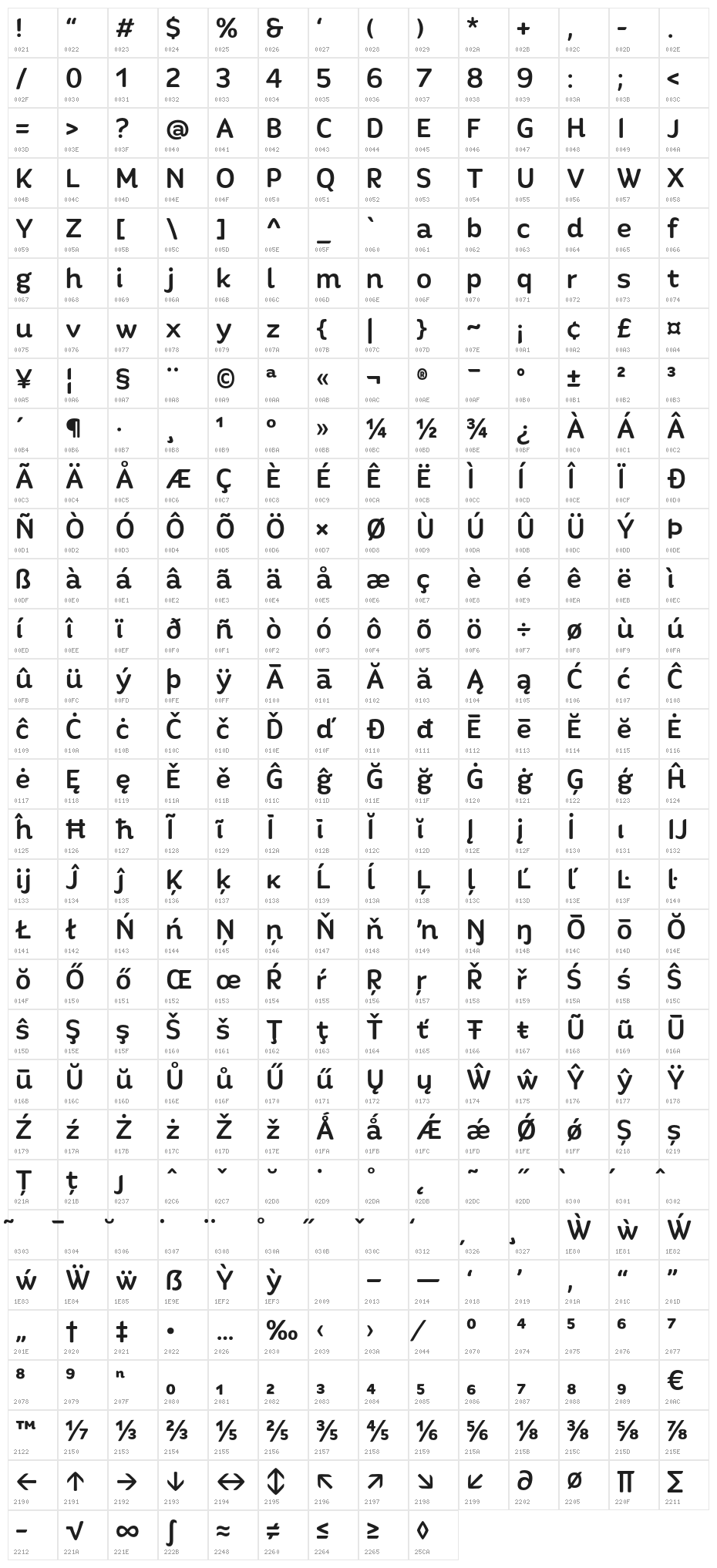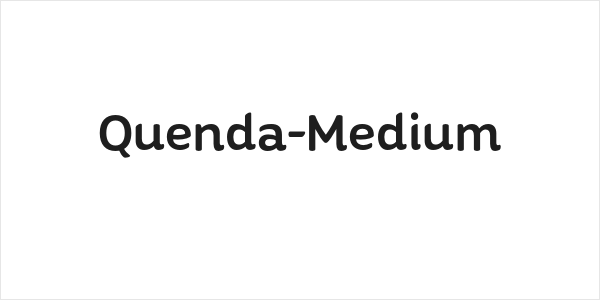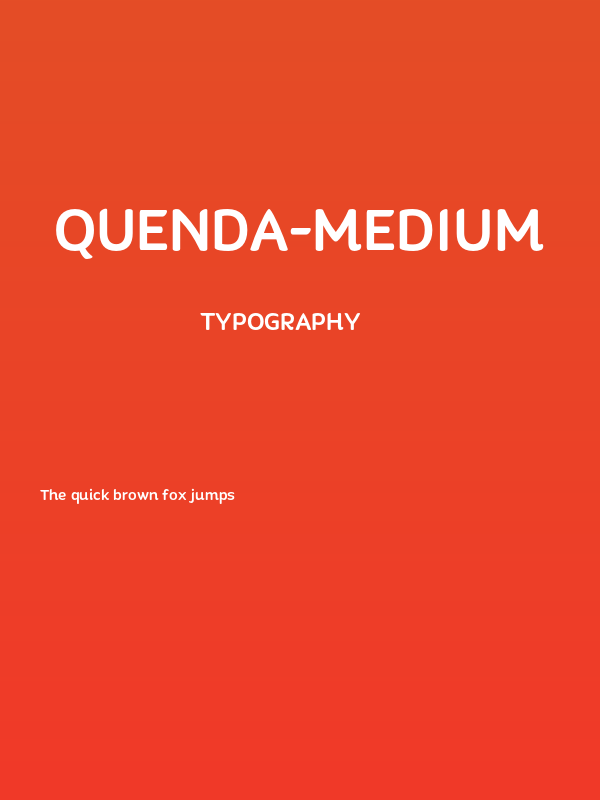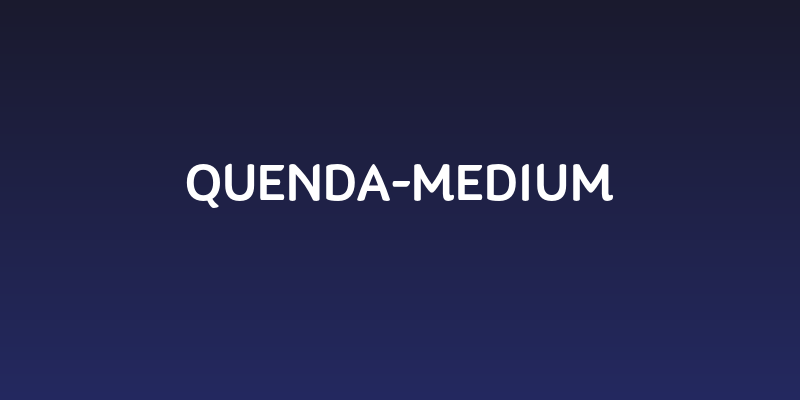
Quenda-Medium Font
Quenda-Medium Description
This font features a clean and modern sans-serif style with smooth, rounded edges that give it a friendly and approachable appearance. The characters are evenly spaced, providing excellent readability across both uppercase and lowercase letters. The numerals are consistent in height and width, ensuring uniformity in design. Special characters are clearly defined, maintaining the font's overall clarity. Its medium weight offers a balanced presence, making it versatile for various design needs.